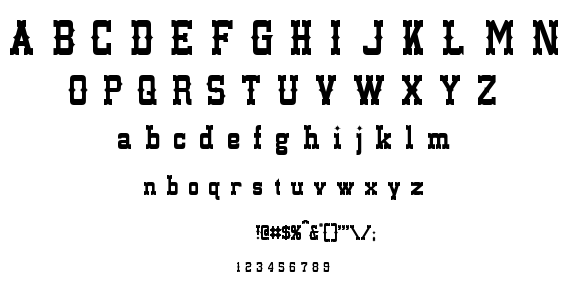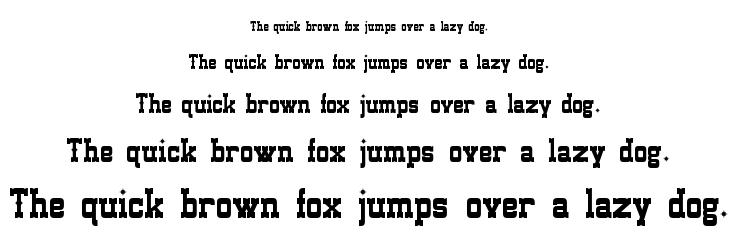
A bold western-themed font based on several shop signs from various Colorado ghost towns. Includes lower case, punctuation, numerals, accent characters, and euro.